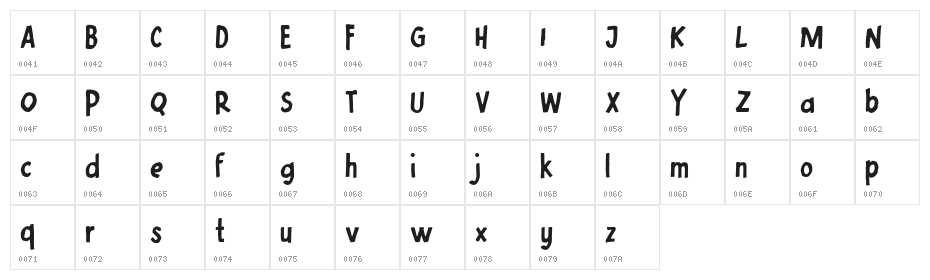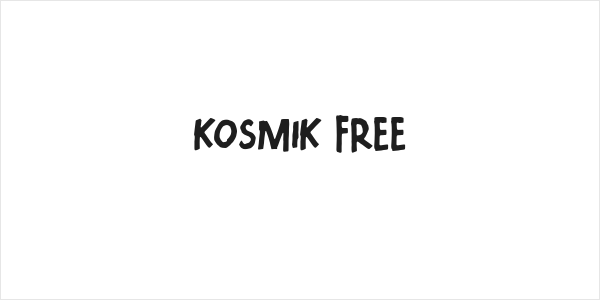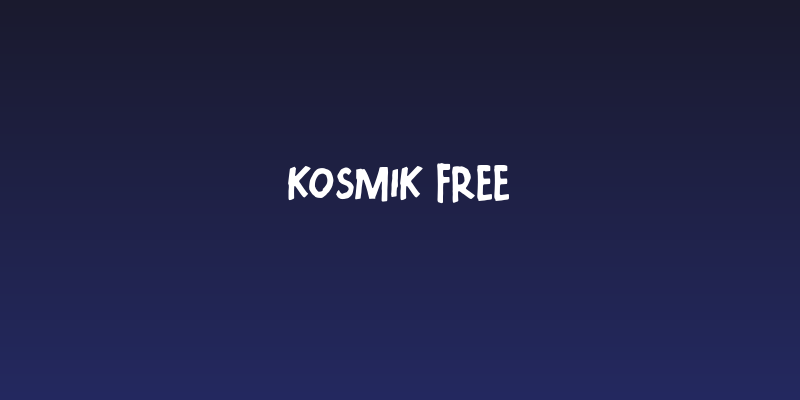
KOSMIK FREE Font
KOSMIK FREE Description
This font features a bold and playful style with a hand-drawn appearance. The letters are slightly irregular, giving it a casual and informal look. The uppercase and lowercase characters maintain a consistent thickness, contributing to a cohesive design. The font's quirky and artistic flair makes it suitable for creative projects. Its unique character shapes and slight variations in stroke width add to its charm, making it stand out in any design. The font is versatile, offering a friendly and approachable feel, ideal for projects that require a touch of personality.
| Proposed Projects | Ideal for children's books, posters, greeting cards, and creative branding. |